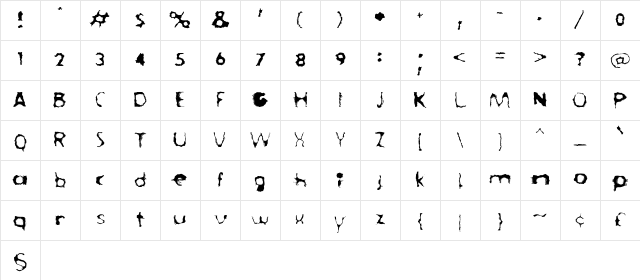
Complete Lost Lubbock Motels Regular glyph index. Displaying only characters natively supported by Lost Lubbock Motels Regular font.
Lost Lubbock Motels is a composed and adaptable typeface that performs quietly and consistently across a wide range of design contexts.